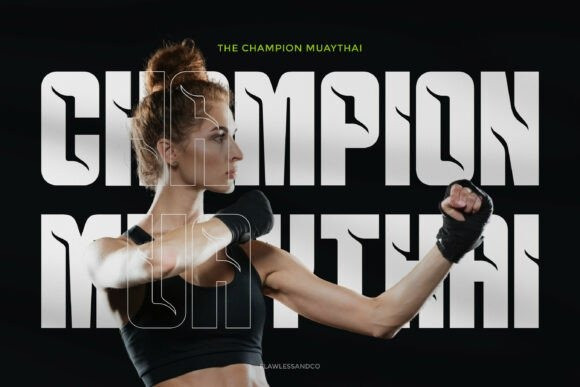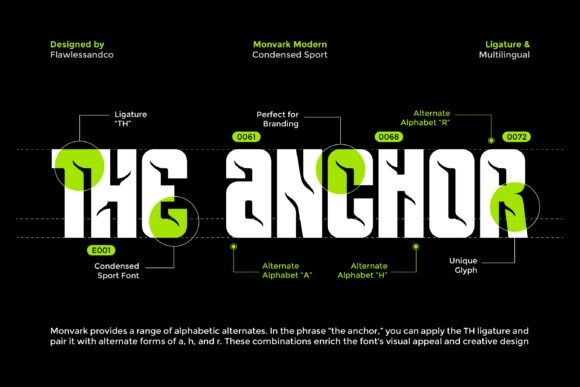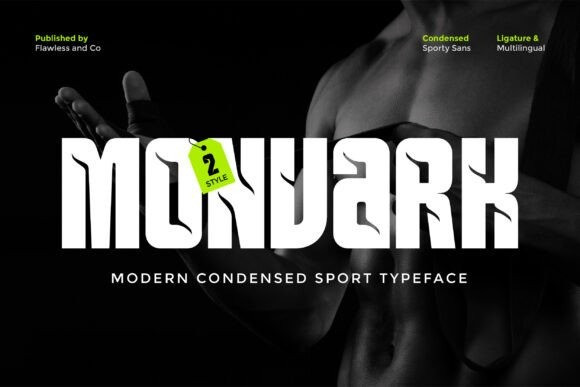
Monvark Font
Monvark Font is a bold and powerful condensed sport font designed to bring intensity, precision, and unstoppable energy to your visuals. Built with a sharp modern style and strong condensed structure, Monvark delivers maximum impact in every letter, perfect for projects that demand speed, strength, and confidence.